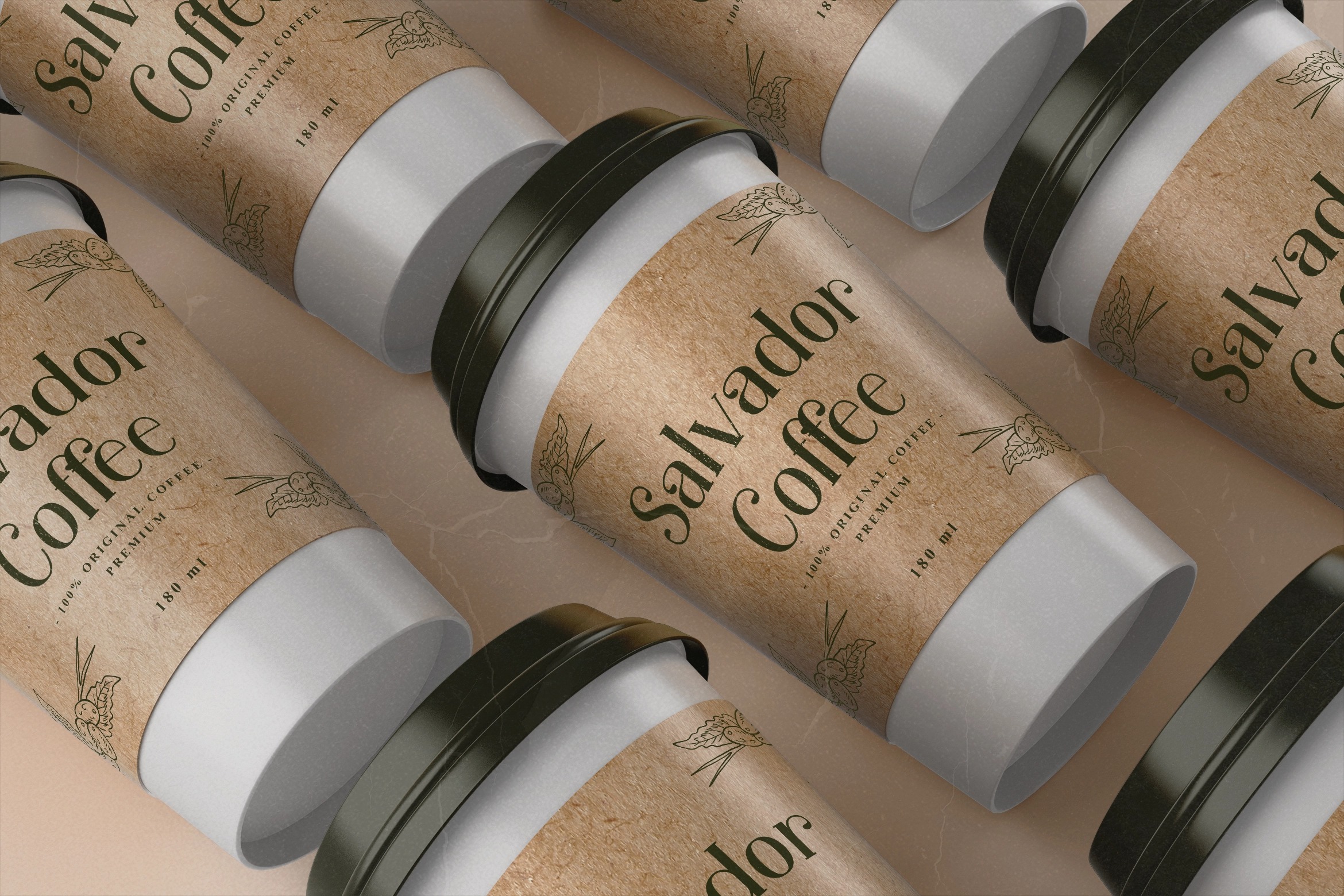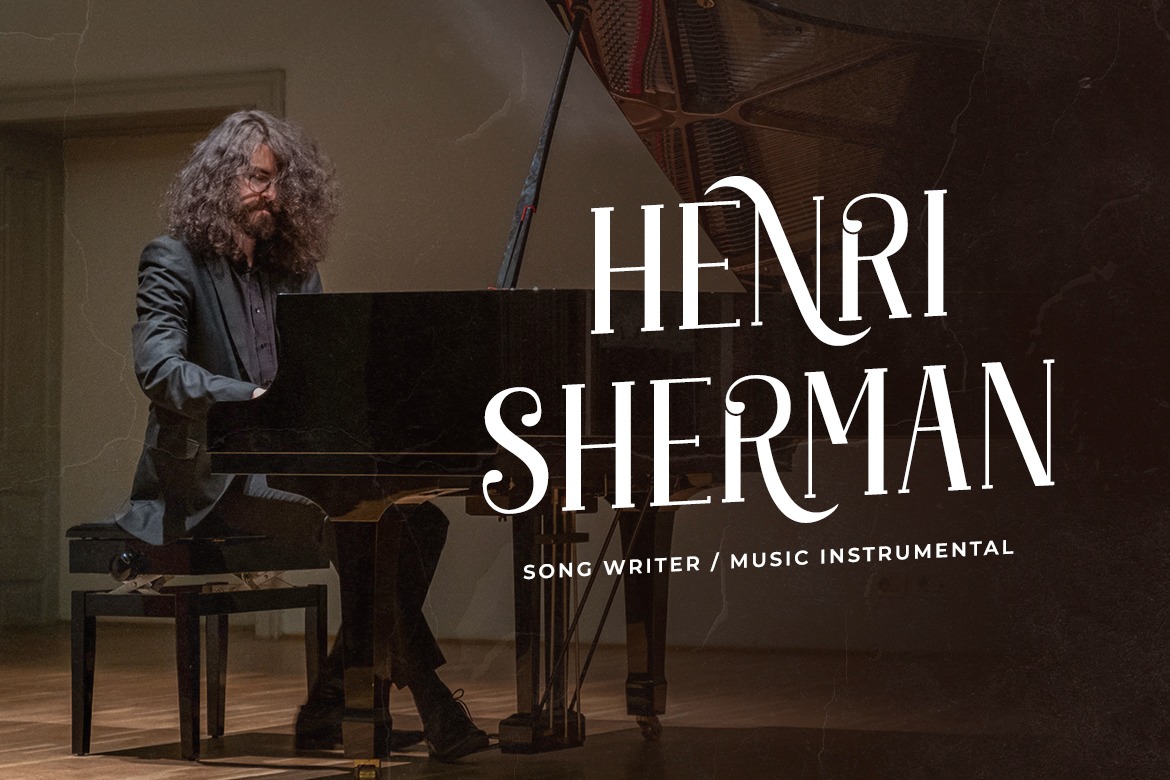
Orchard Song Serif Font
This font is a modern and bold serif with a bunch of ligatures and alternates that will make your presentation or logo even more stunning and stand out! Also its perfect for musical theme or musical instrument design! Great for your personal needs, promotional projects, gifts, scrapbooks, printing, and much more.